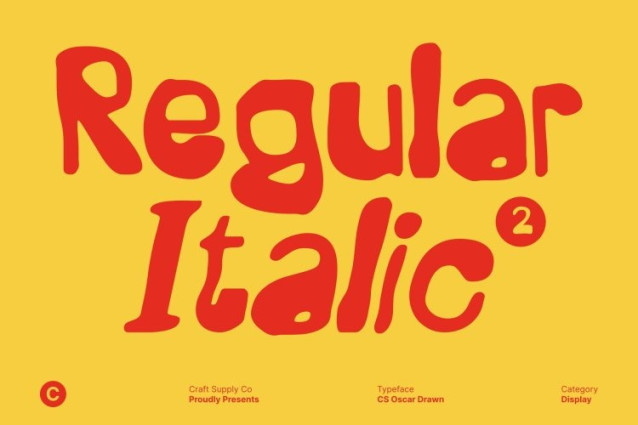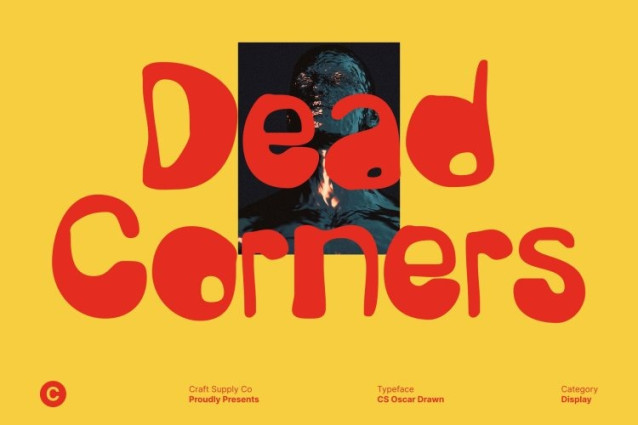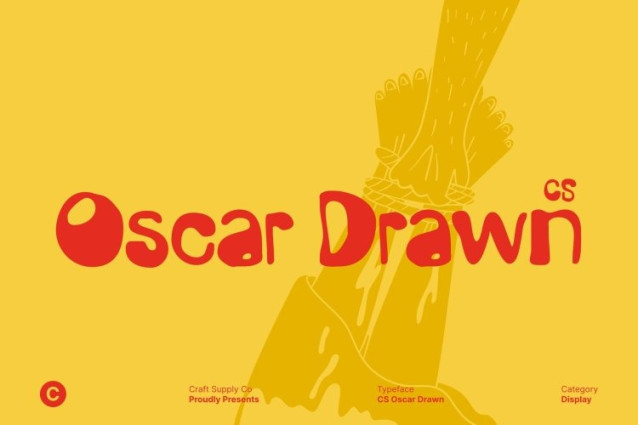
CS Oscar Drawn Font
CS Oscar Drawn Font This is a lively display font designed with bold strokes and fun, friendly shapes that instantly communicate playfulness and energy. Its expressive letterforms feel cheerful and approachable, making the font ideal for designs that aim to connect with a youthful and casual audience. The etchy details add extra character, giving each letter a spirited personality that feels spontaneous and full of life.
Hand-Drawn Effect with Natural Texture
The drawn effect gives a natural texture and organic shape, enhancing its handmade appeal. Subtle imperfections and textured strokes create a sense of authenticity, making the typography feel warm and naturally written. This artistic texture prevents the font from feeling rigid or overly polished, reinforcing its friendly and creative tone.
Bold Shapes with Friendly Character
With its bold construction and soft curves, balances strong visual impact with readability. The rounded, playful forms ensure the font remains clear and engaging at display sizes, making it suitable for headlines, titles, and short messages.
Perfect for Youthful and Casual Projects
This font is especially well suited for youth branding, greeting cards, packaging, posters, and casual creative projects. Its playful nature and hand-drawn texture help create designs that feel inviting and expressive. Whether used in print or digital media, delivers a cheerful, natural, and memorable typographic voice that brings creative ideas to life.